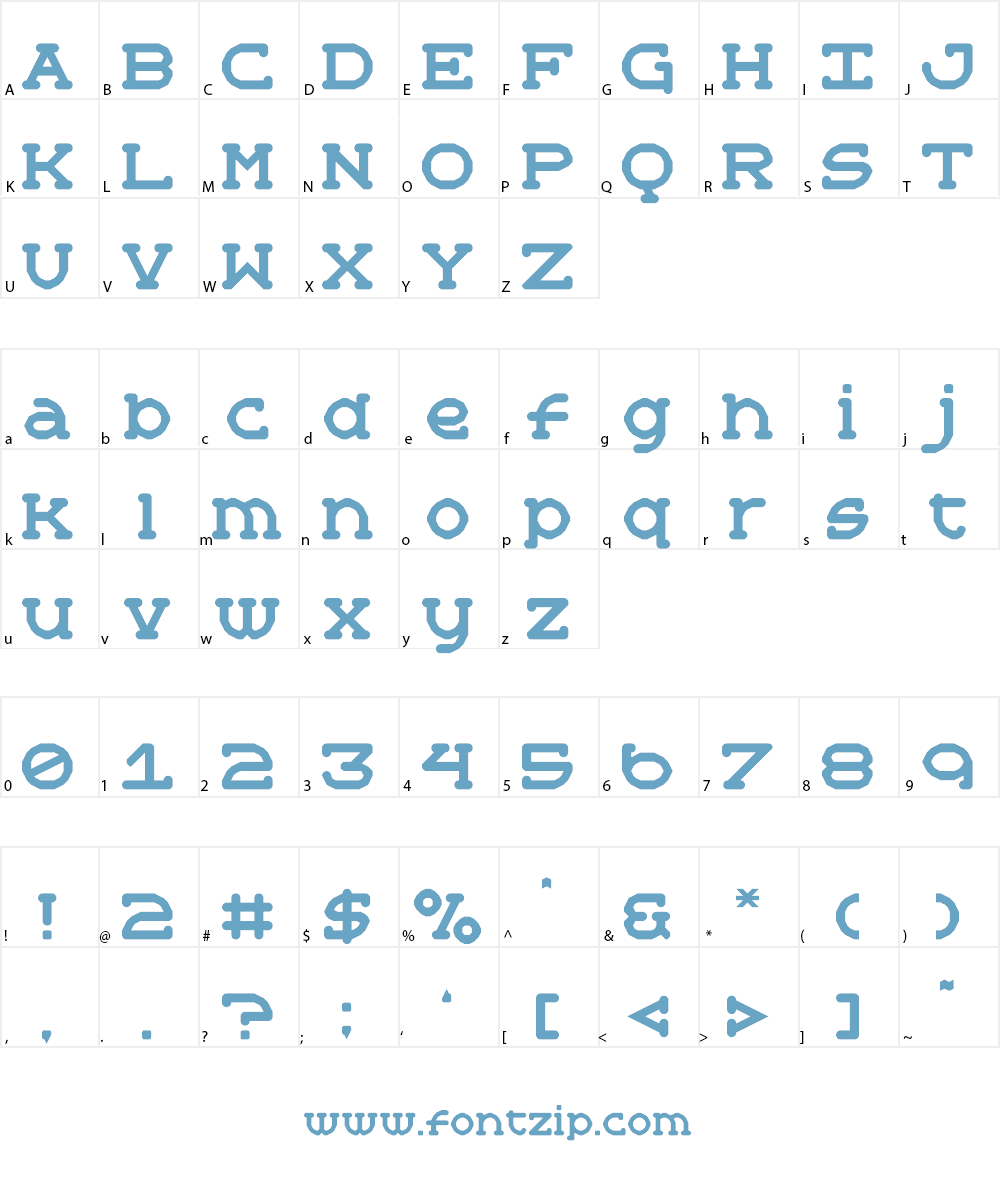
A tiny, cute Courier-like font. It can do both casual and formal moods, though it excels at the former, I think. The name is inspired by the old computer joke: "Who is General Failure and why is he reading my hard disk?"
Supports Danish, Dutch, English, Esperanto, Finnish, French, German, Greek, Hungarian, Icelandic, Italian, Latvian, Lithuanian, Norwegian, Polish, Portuguese, Russian, Spanish, Swedish, and Turkish among others!